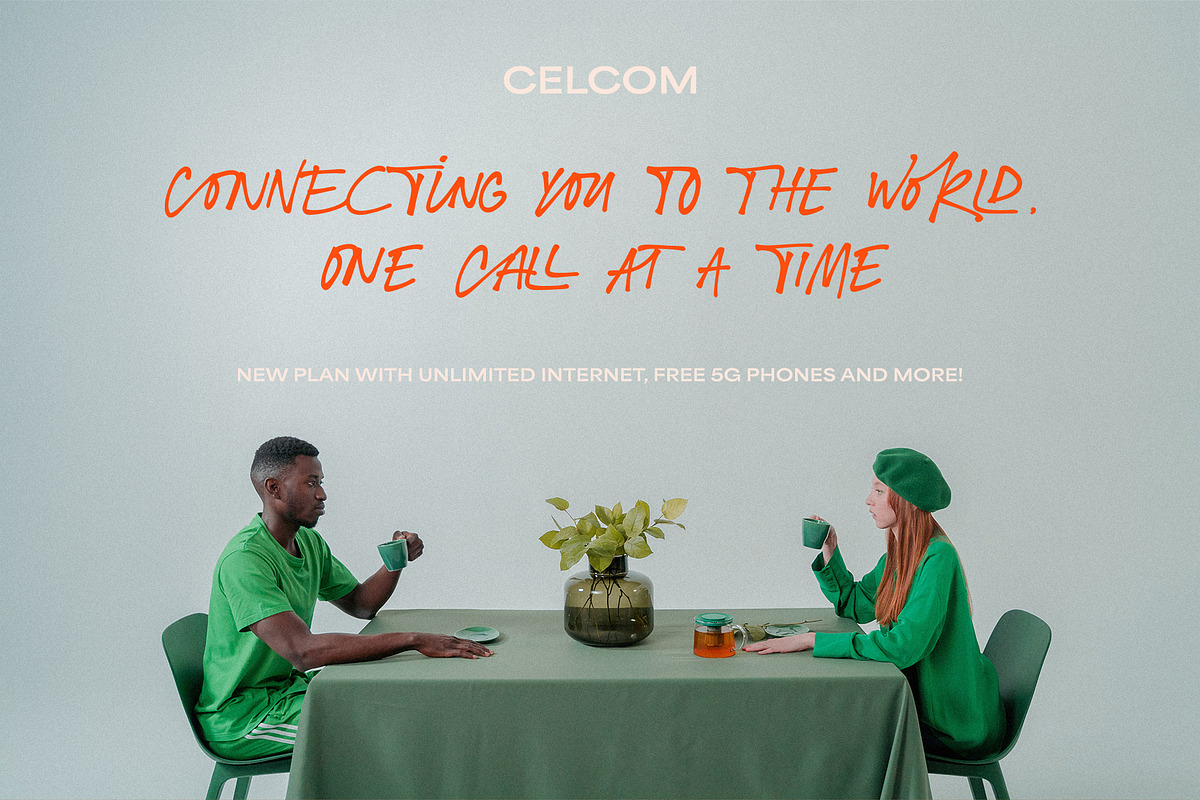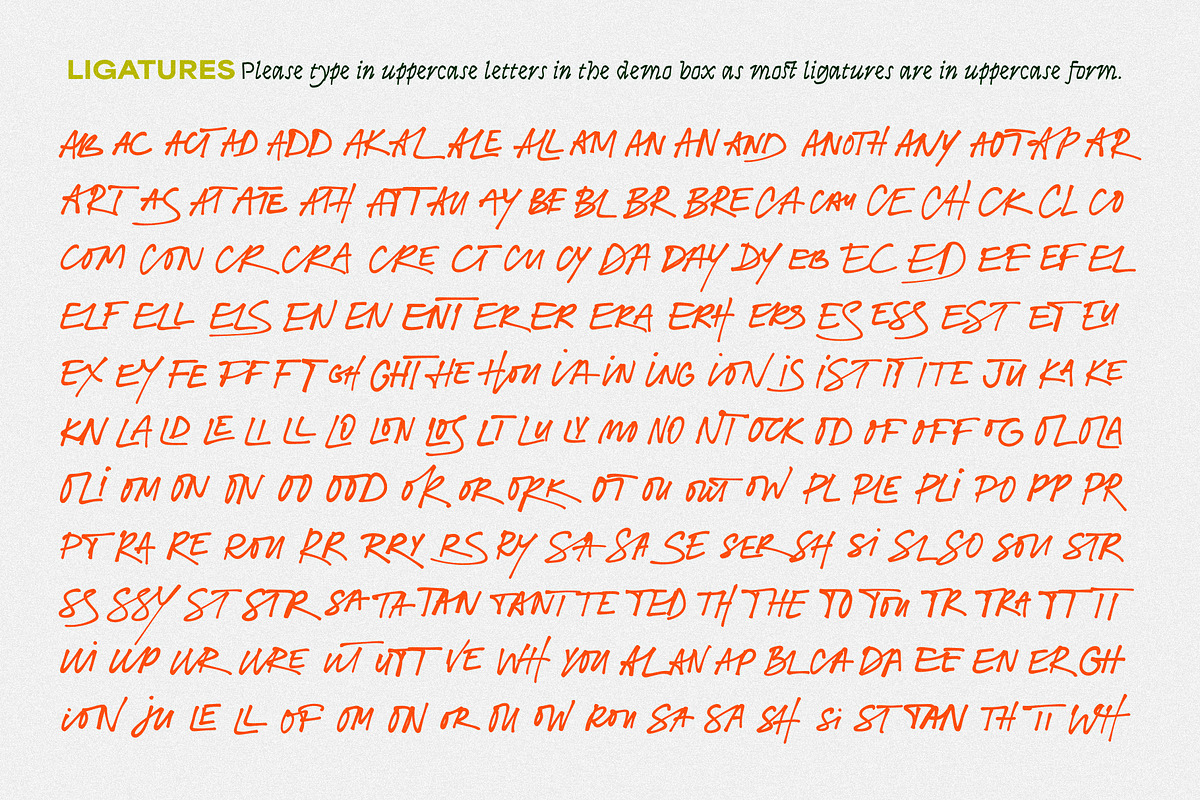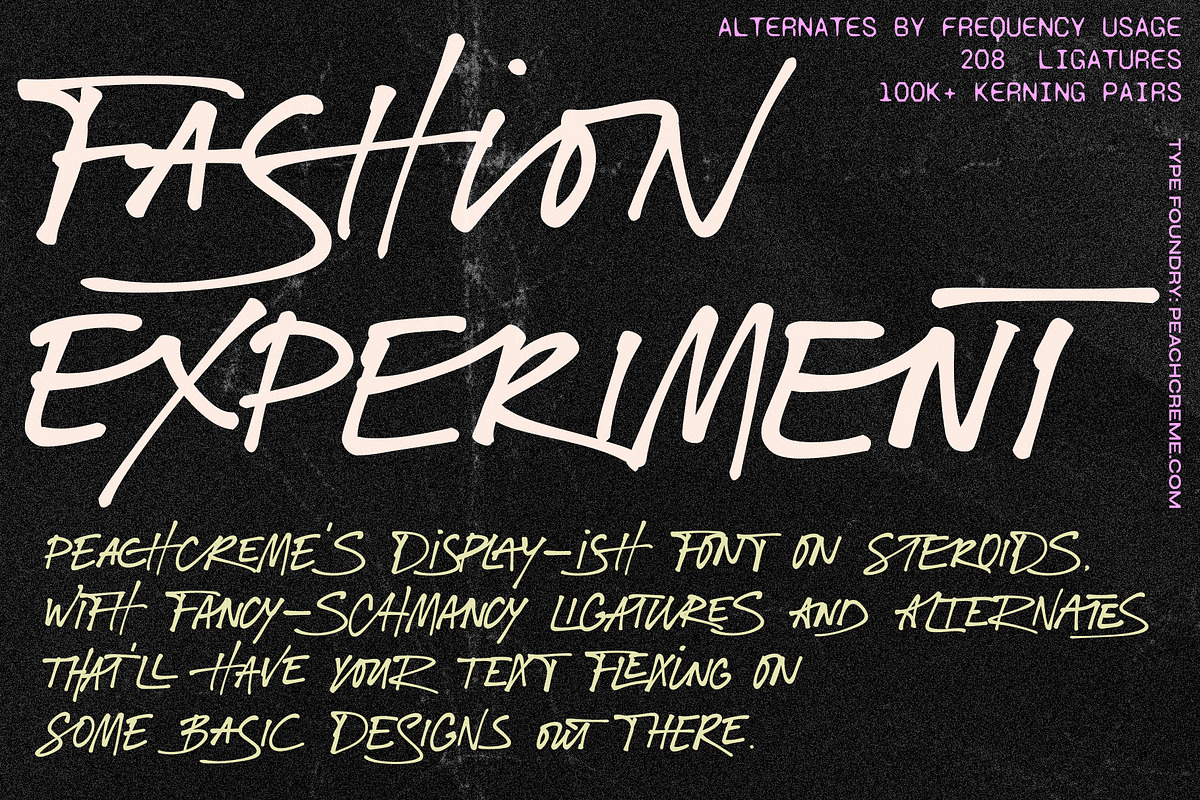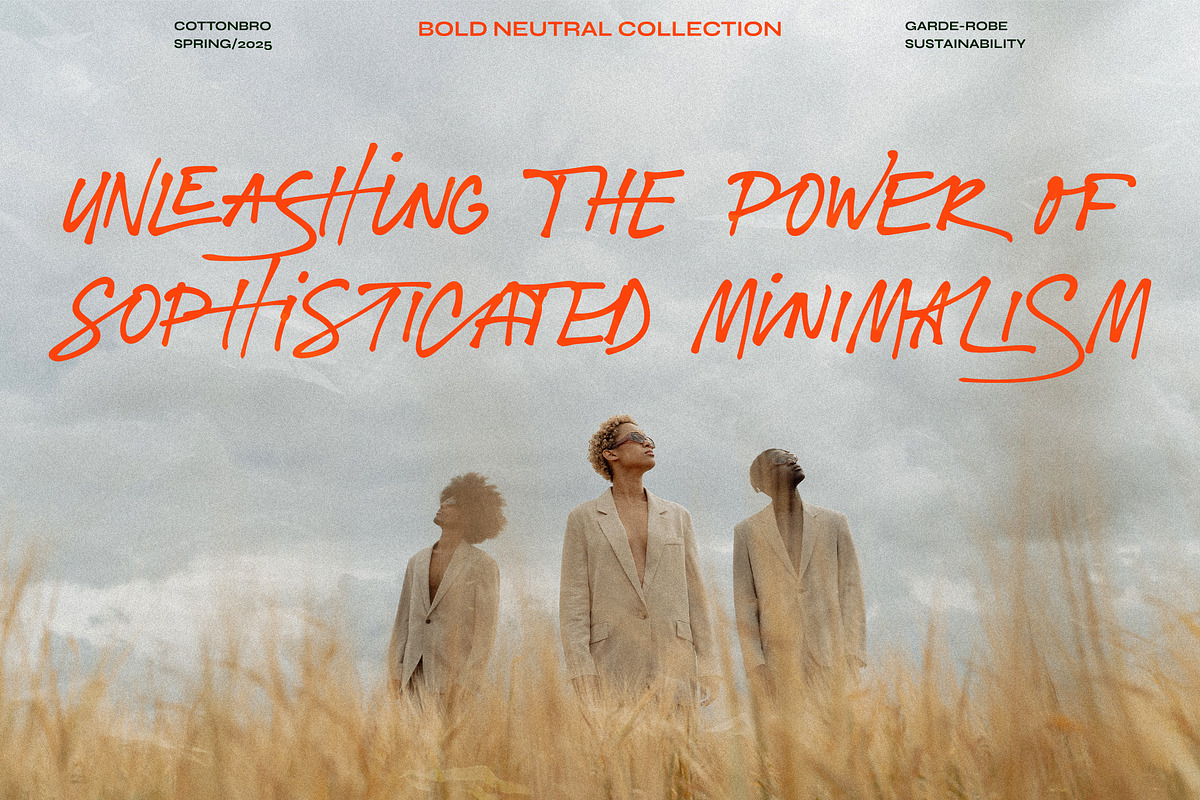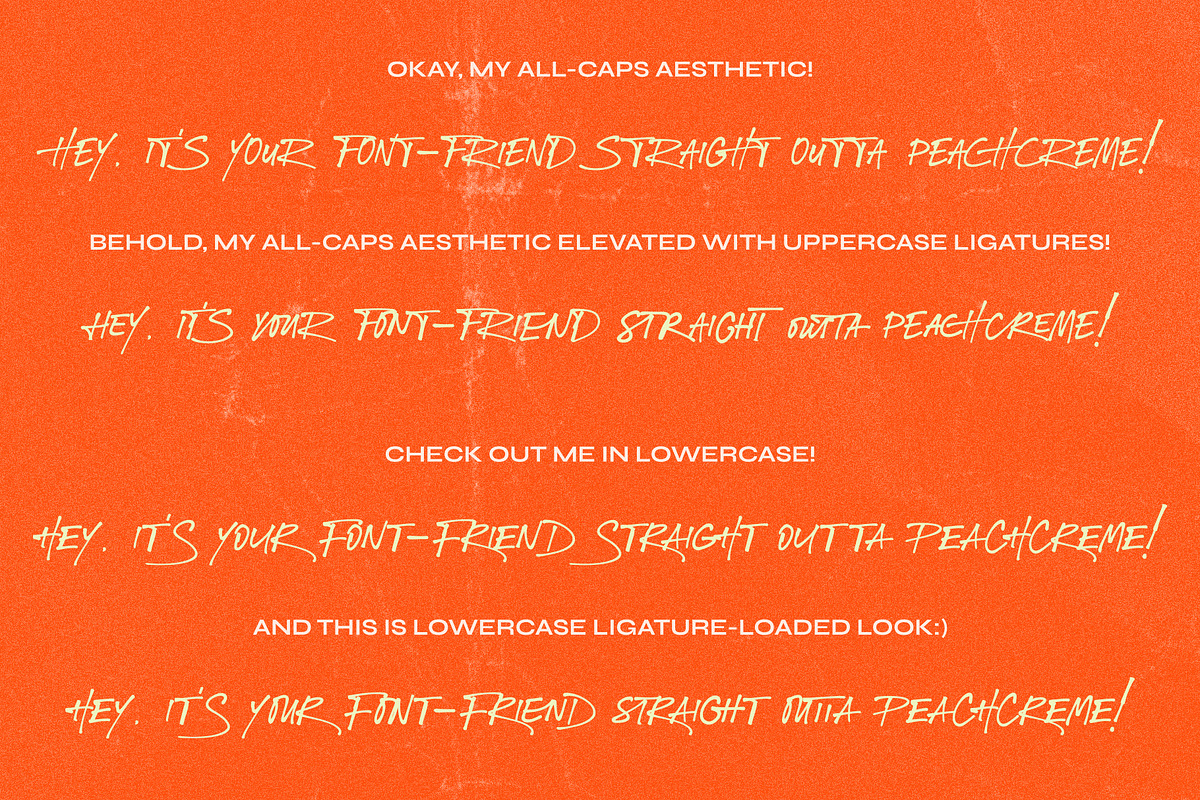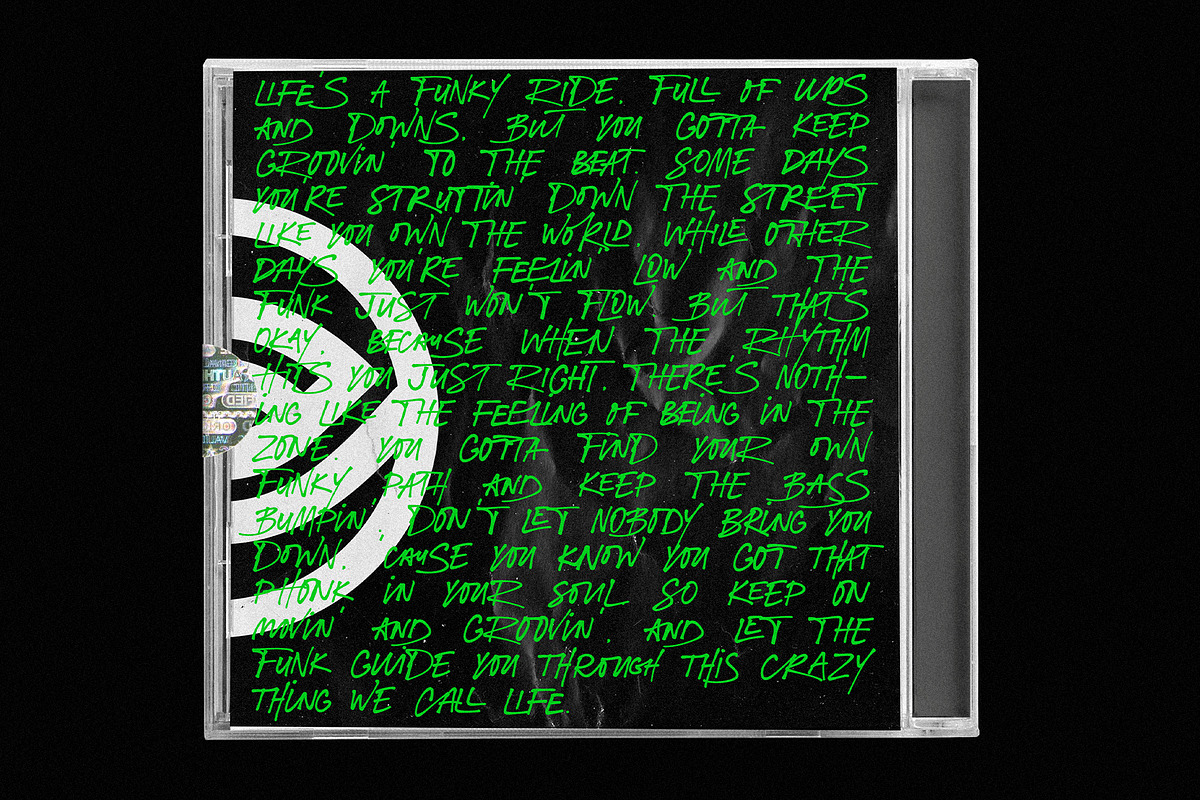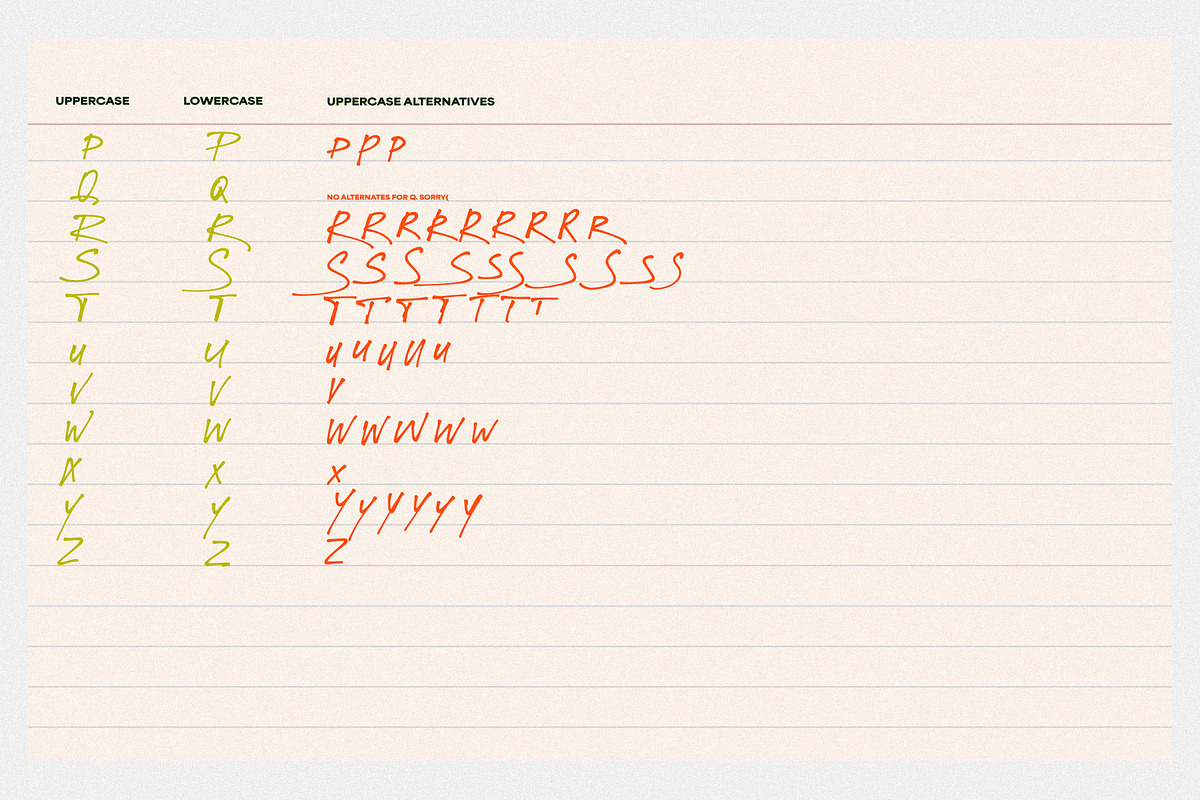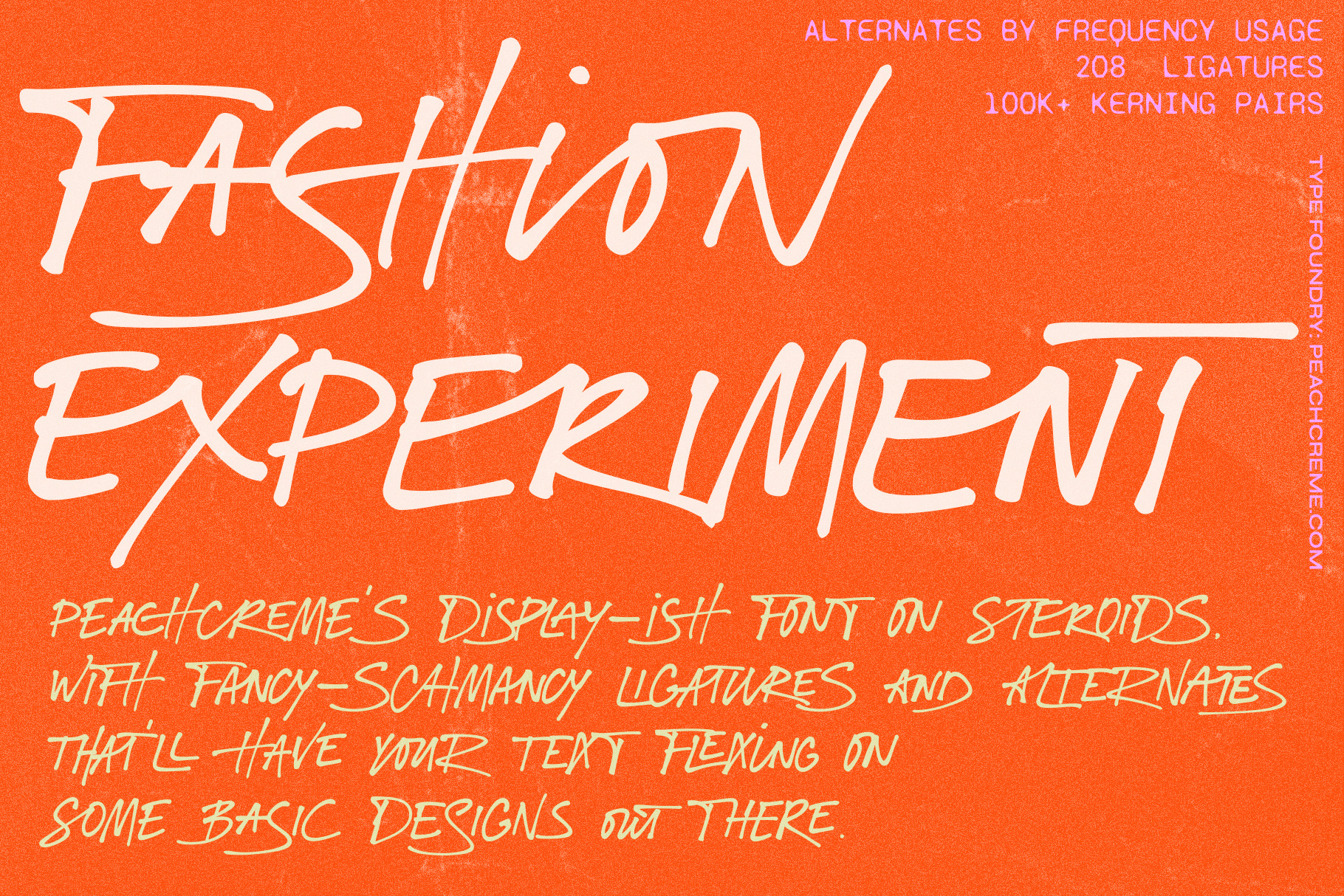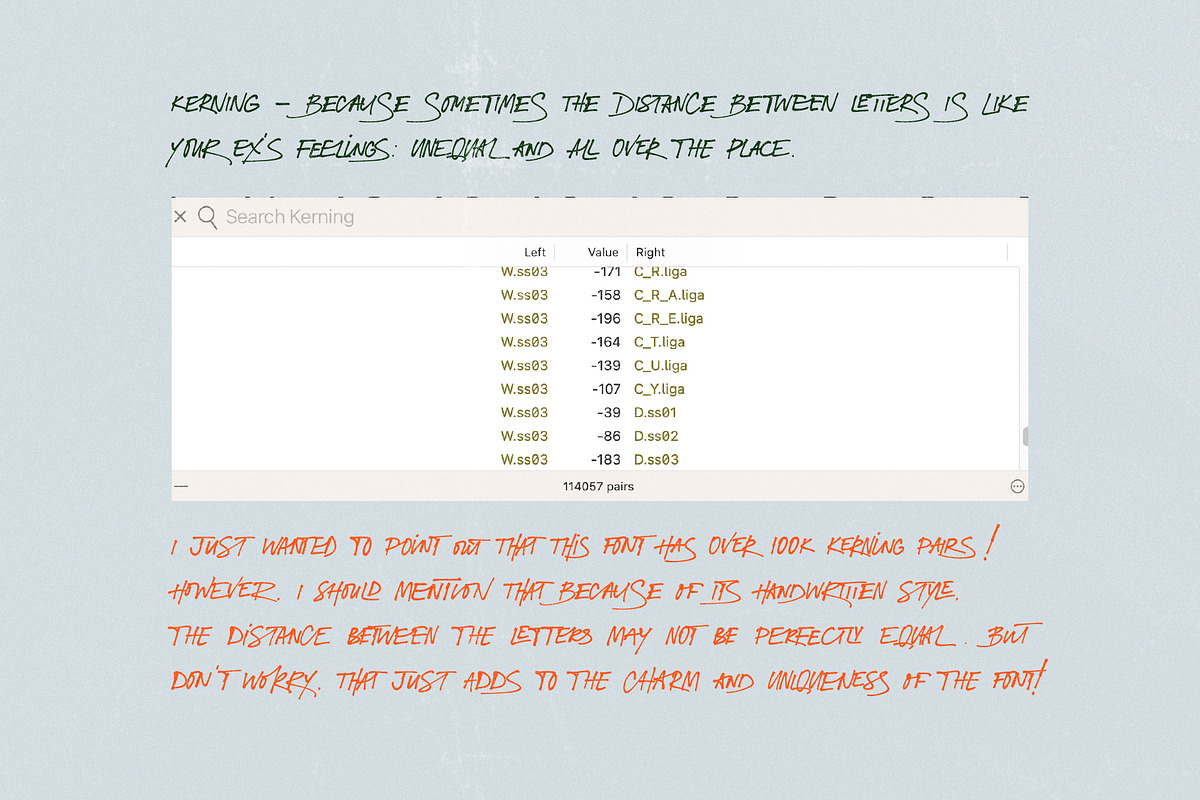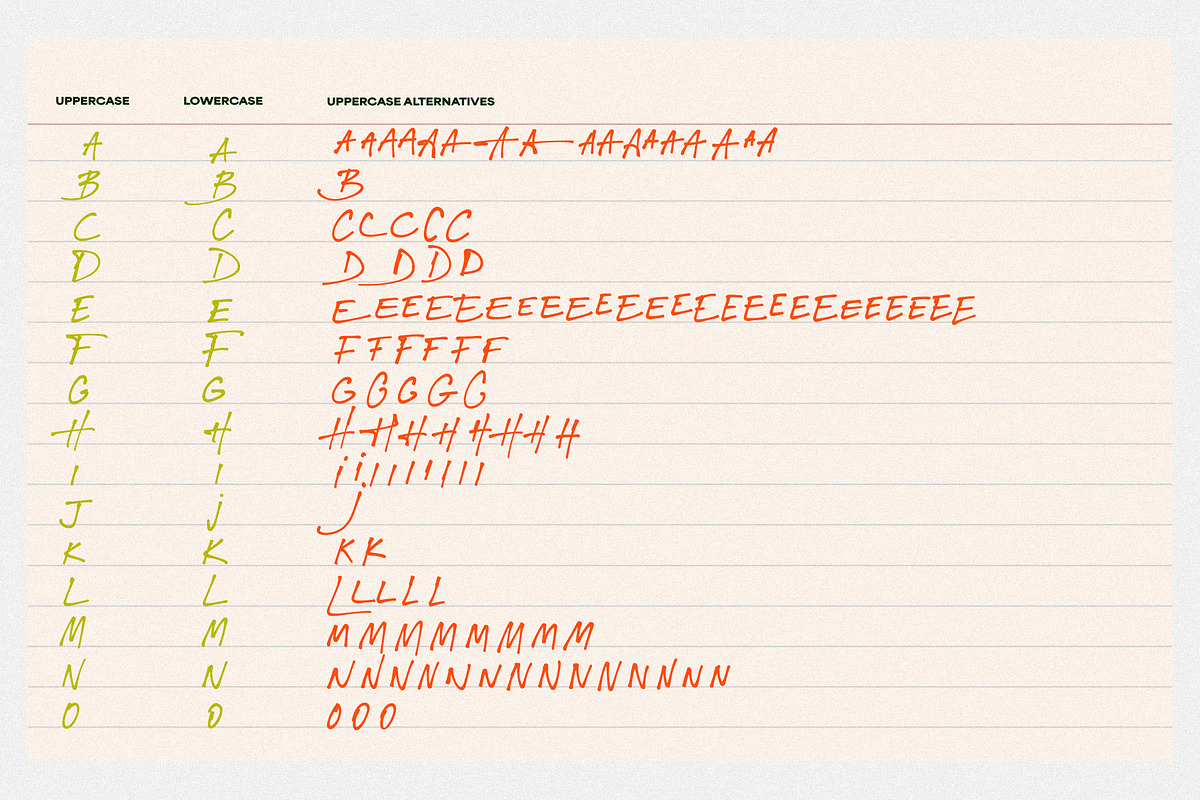
Fashion Experiment // Funky Font
"Fashion Experiment" is an all-caps handwritten display font, featuring a funky and expressive gel pen-style that is perfect for creating impactful header text, poster designs, album covers, product designs, and merchandise. The font includes alternative letters and ligatures,which are coded for uppercase letters. The font also features more than 100k kerning pairs, ensuring optimal precision and readability.
To maintain the authentic appearance of ligatures, this font was crafted from handwritten text. However, as ligatures that complement one combination of letters may not work for another, it is essential to have the option of switching to alternate letters or avoiding the use of ligatures altogether.
The frequency of use for certain letters varies, resulting in some letters having more alternates than others. For example, letters such as A, E, L, M, S, and T are more commonly used than letters like X, Z, and Q, which explains the difference in alternate options.